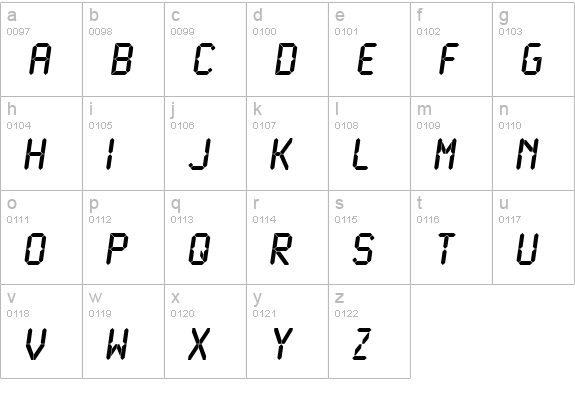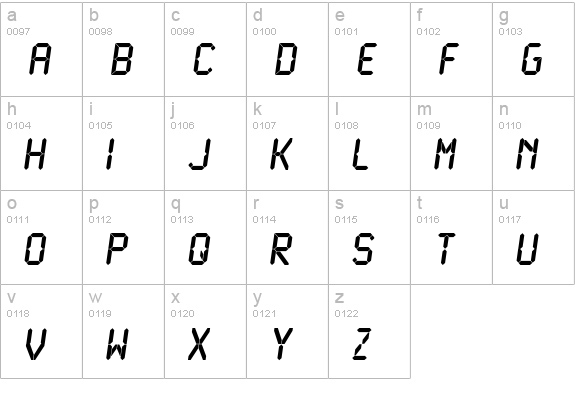
LCD Bold is a strong, high-contrast variant in the LCD typeface family \xE2\x80\x94 well suited to headlines, attention-grabbing titles, and strong calls-to-action.
Introducing LCD Bold, a striking and modern font that effortlessly captures attention with its bold and commanding presence. With its sleek and clean lines, this font exudes a sense of confidence and professionalism that is perfect for various design projects. LCD Bold is designed with precision and care, ensuring that every character is meticulously crafted to deliver maximum impact. Its bold weight adds a touch of assertiveness to any design, making it ideal for headlines, logos, posters, and signage that demand attention. This font's versatility extends beyond its boldness. LCD Bold is also incredibly easy to read, making it an excellent choice for digital displays, user interfaces, and any text that needs to be clear and legible even from a distance. Its clarity and legibility make it a popular choice for information boards, menus, and digital signage. But what sets LCD Bold apart is its accessibility. This font is freely available to download at FontsMarket.com, allowing designers, creatives, and enthusiasts alike to harness its power without any restrictions. Whether you're working on a personal project or a commercial venture, LCD Bold offers the freedom and flexibility to elevate your designs with its bold and impactful presence. Embrace the power of LCD Bold and let your designs shine with its commanding typography. Download this exceptional font now, exclusively at FontsMarket.com, and unlock the limitless potential to create stunning visuals that captivate and inspire.